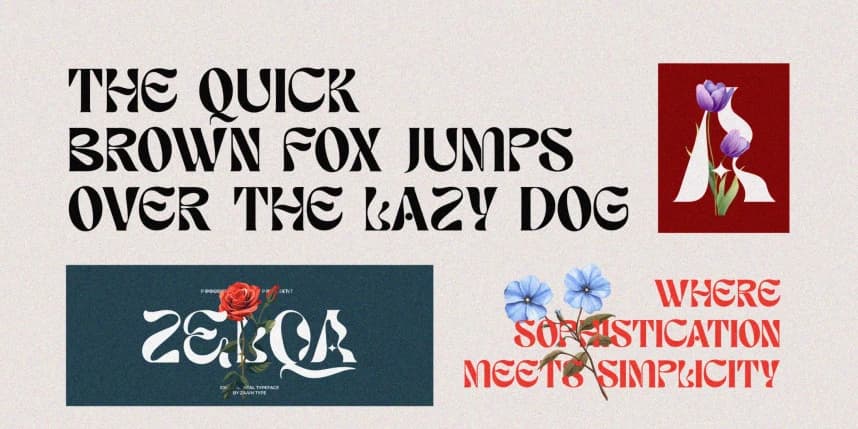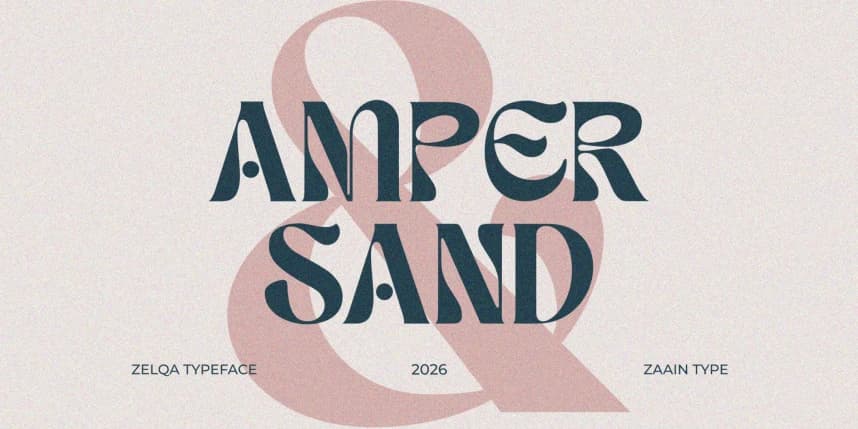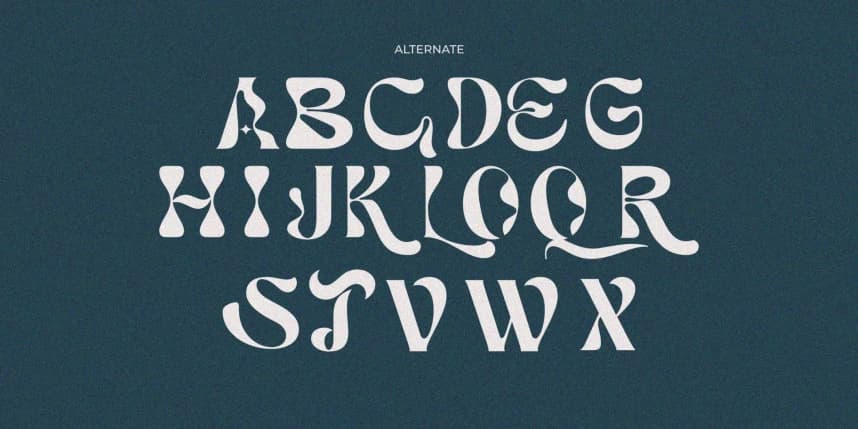
Zelqa Font
Zelqa Font is an experimental typeface that pushes the boundaries of conventional design. With its unconventional shapes, dynamic contrasts, and unexpected letterforms, Zelqa delivers a bold visual statement that stands out in modern creative projects.